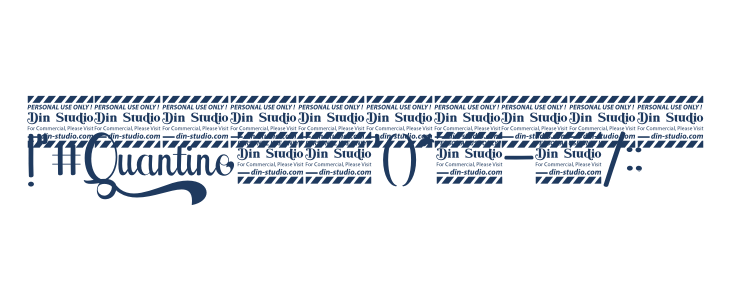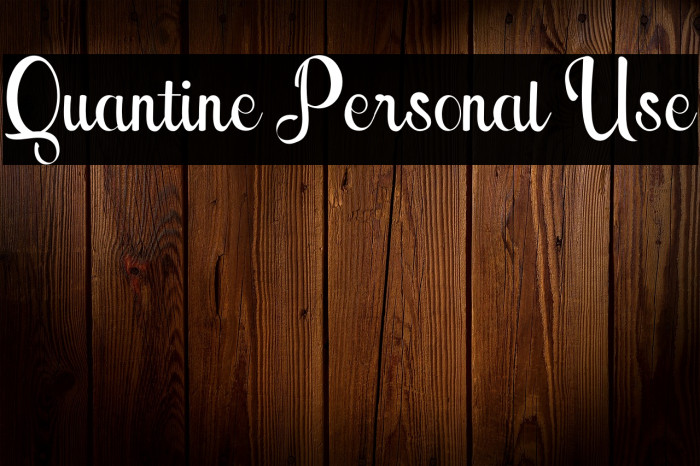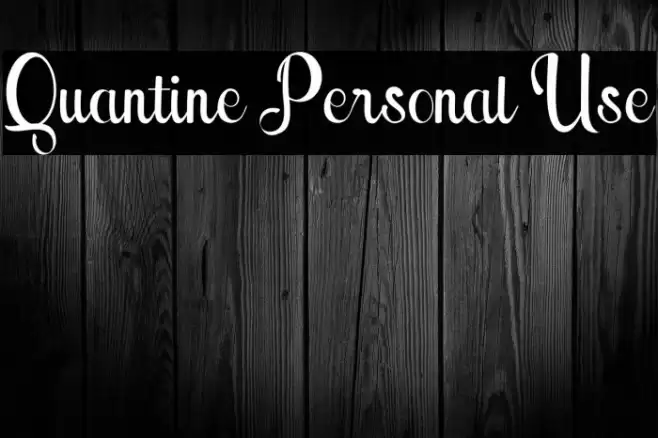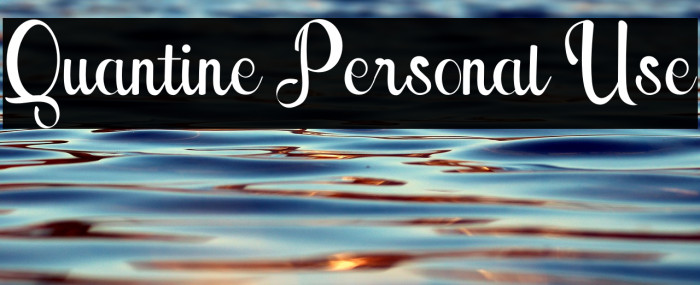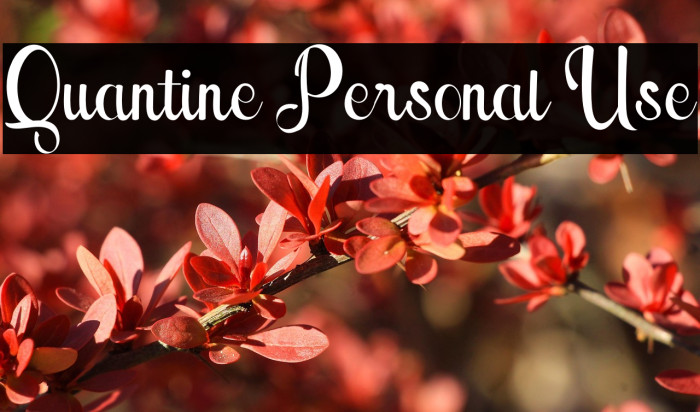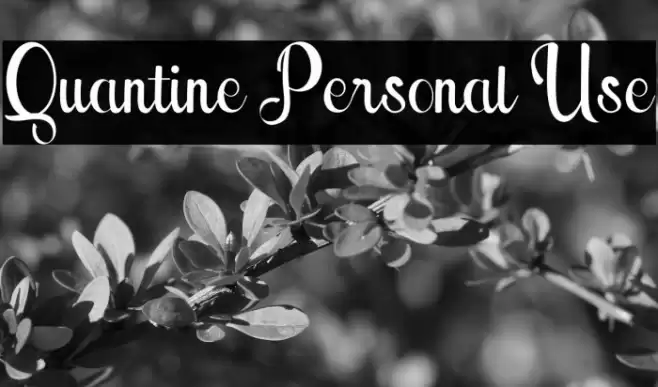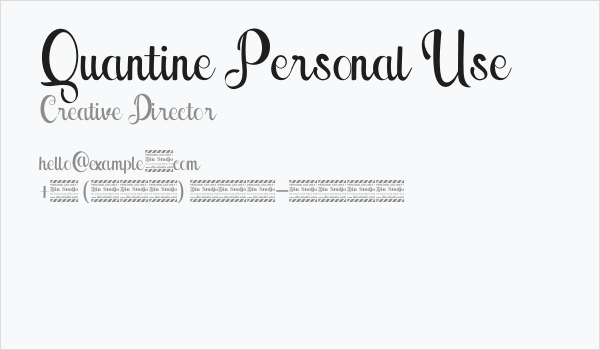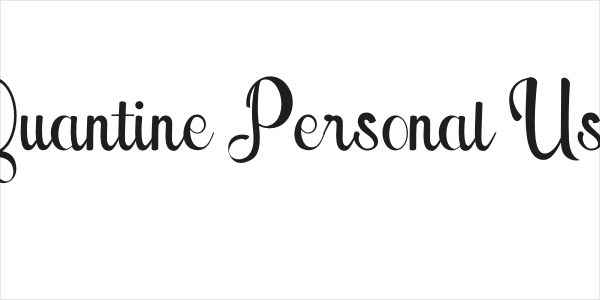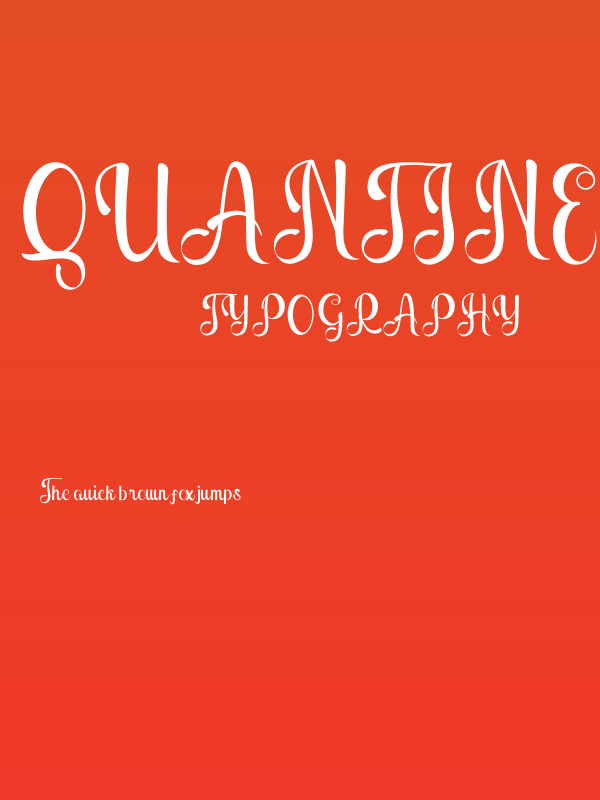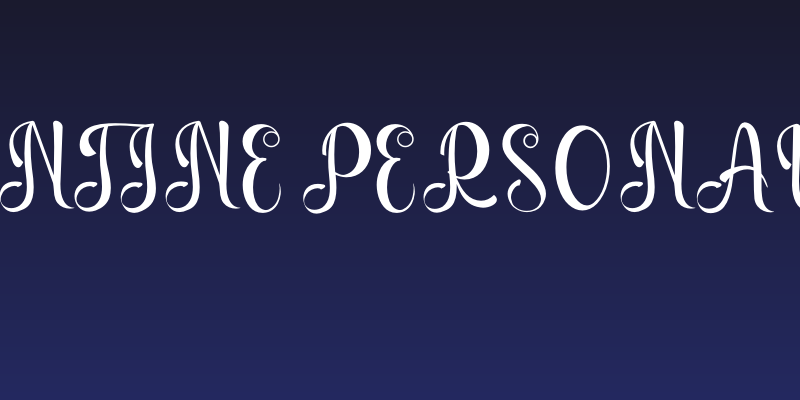
Quantine Personal Use Font
Quantine Personal Use Description
This font features a distinctive and elegant script style with a modern twist. The uppercase letters are characterized by their flowing, cursive forms, with some letters incorporating unique loops and swirls that add a decorative flair. The lowercase letters maintain a consistent style, with smooth curves and a slightly bold appearance that ensures readability. The numerals and special characters complement the alphabet with similar stylistic elements, making the font versatile for various design needs. The overall impression is one of sophistication and creativity, suitable for projects that require a touch of elegance.
| Proposed Projects | Ideal for wedding invitations, branding, greeting cards, and elegant packaging designs. |